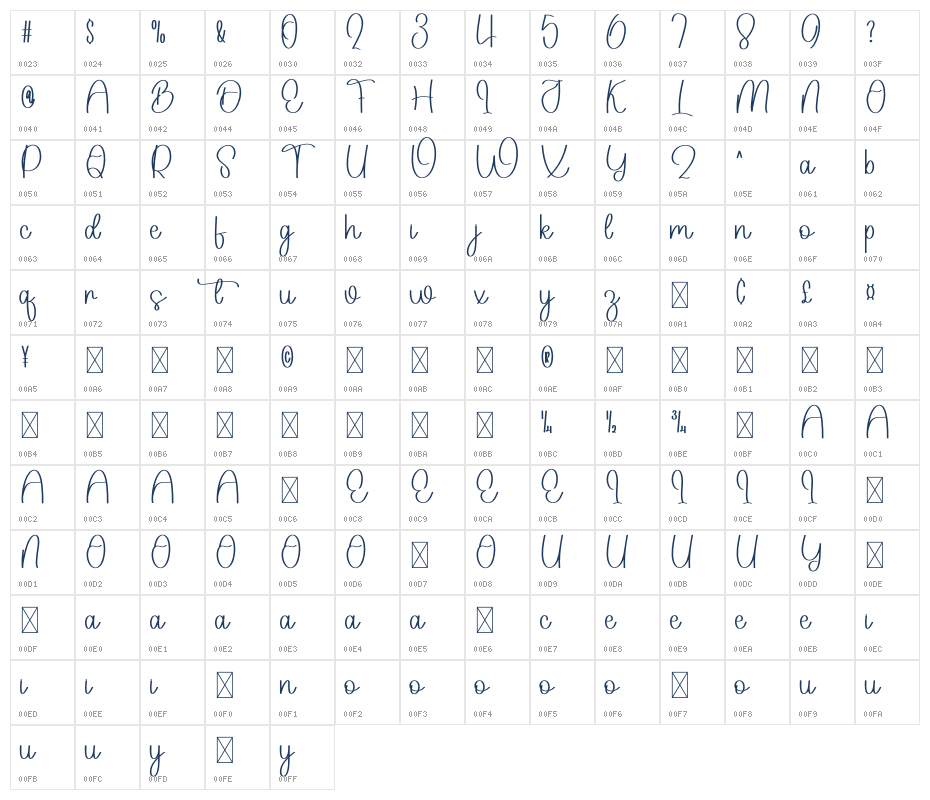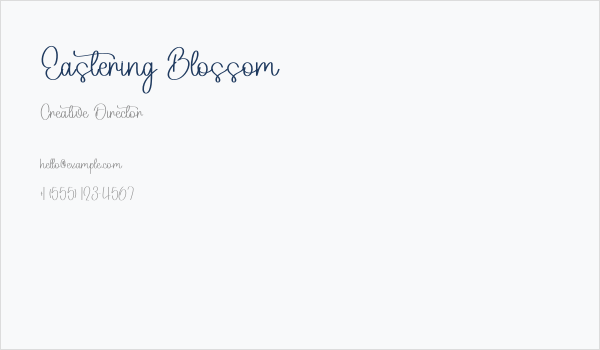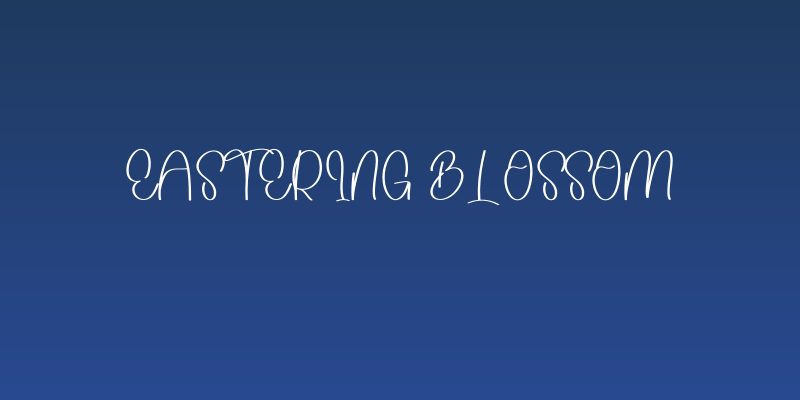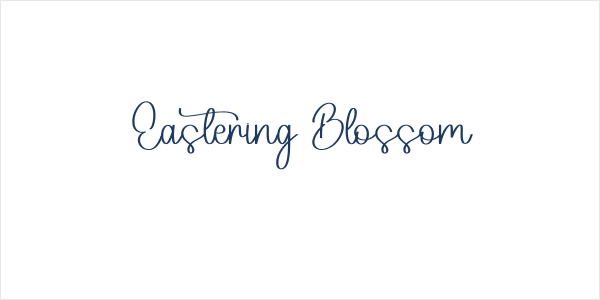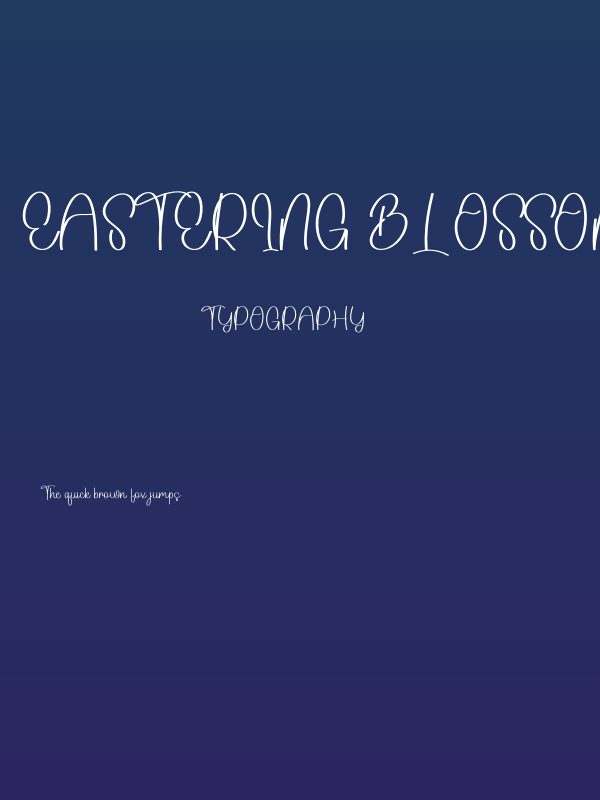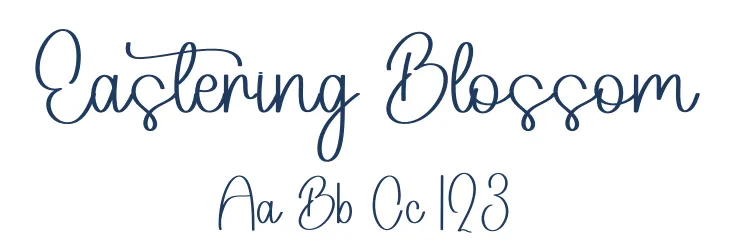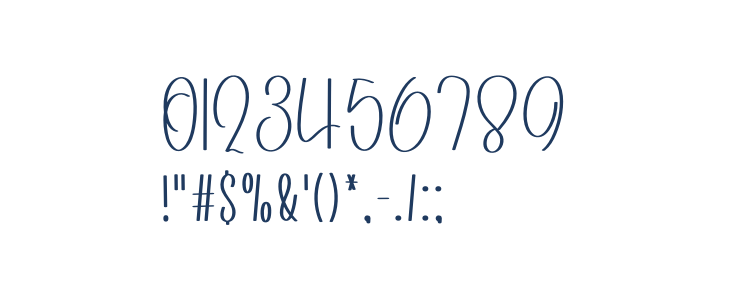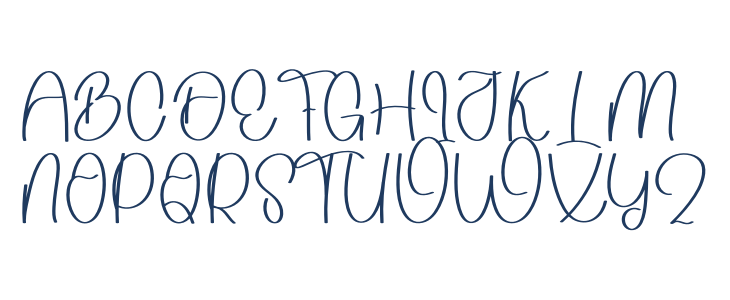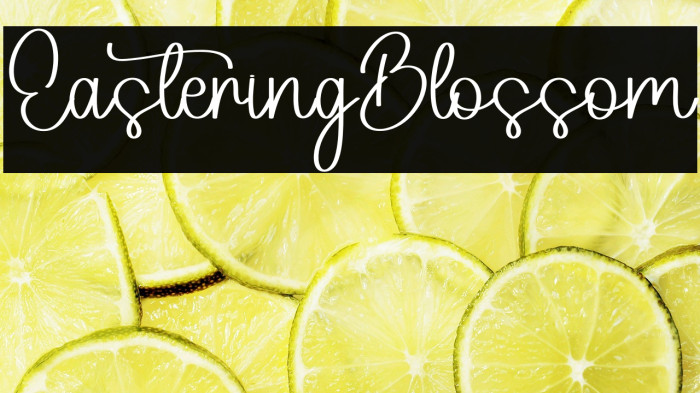
Eastering Blossom Font
Eastering Blossom Description
A handwritten, cursive style font with a casual and elegant appearance, featuring thin, flowing lines and a slightly playful character.
| Overall Style | Casual, Elegant, Handwritten |
| Use Case | Invitations, greeting cards, personal branding, logos, decorative headings |